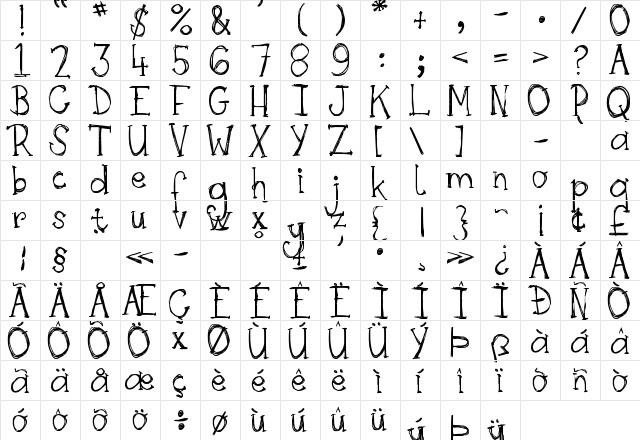
DJB Skritch Skratch Regular
| Designer | Darcy Baldwin (djbfontography) |
Design Context for DJB Skritch Skratch Typeface
DJB Skritch Skratch is a composed and adaptable typeface that performs quietly and consistently across a wide range of design contexts.